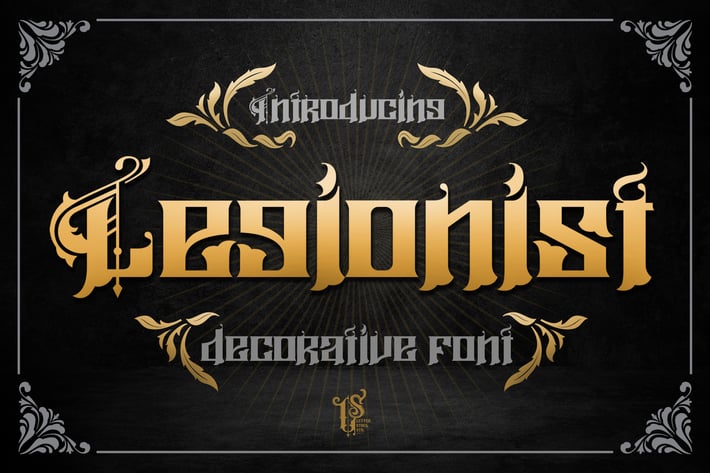
Legionist - Decorative font
Legionist
This pair was inspired by wallpaper design that i saw at the garage, it was crafted by hand specially to add natural handmade feeling in its brand identity than i make it clean with pentool.
Legionistfont has 173 character set included.
This font is very good for design logo, labels, packaging product, invitations, advertising and others. This font will make your design authentic, unique and good looking with modern calligraphy style.
If you’re looking for authentic decorative serif font, this item is a great choice to make your design looks great, unique and authentic.